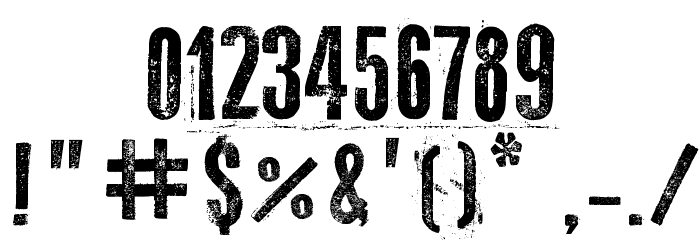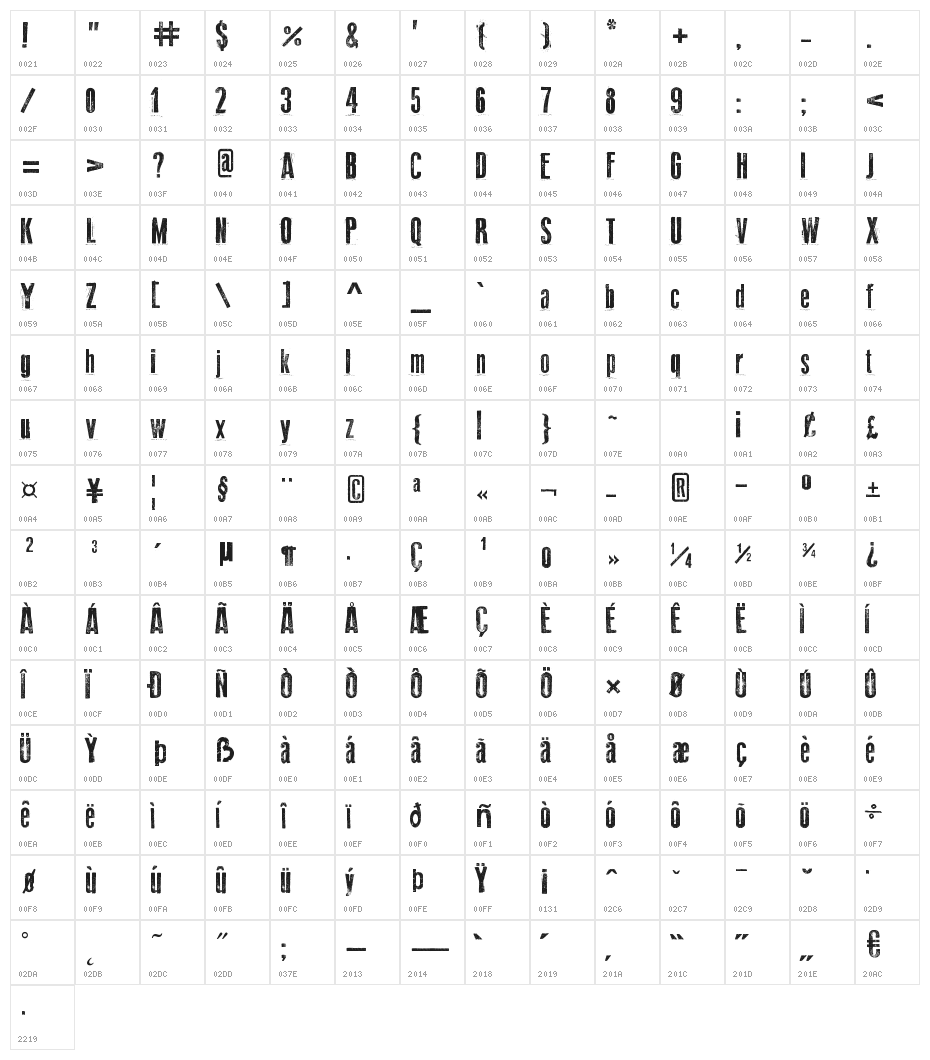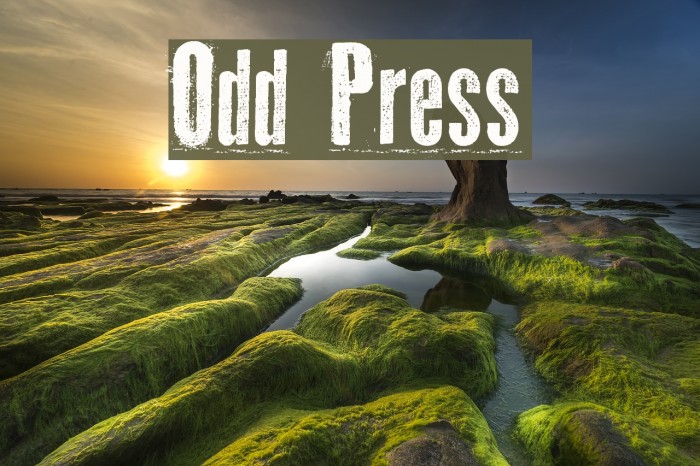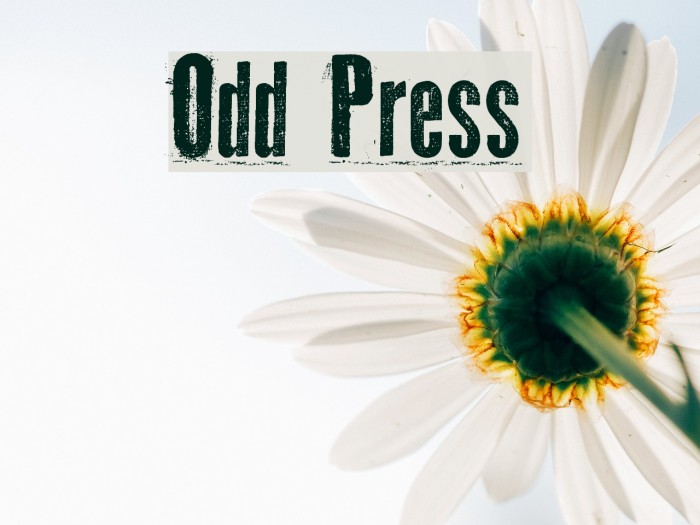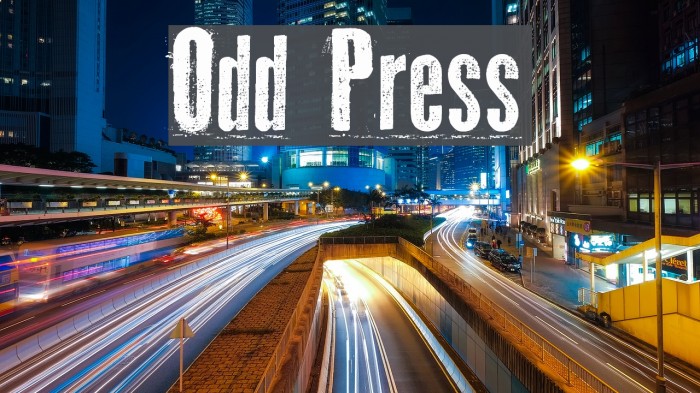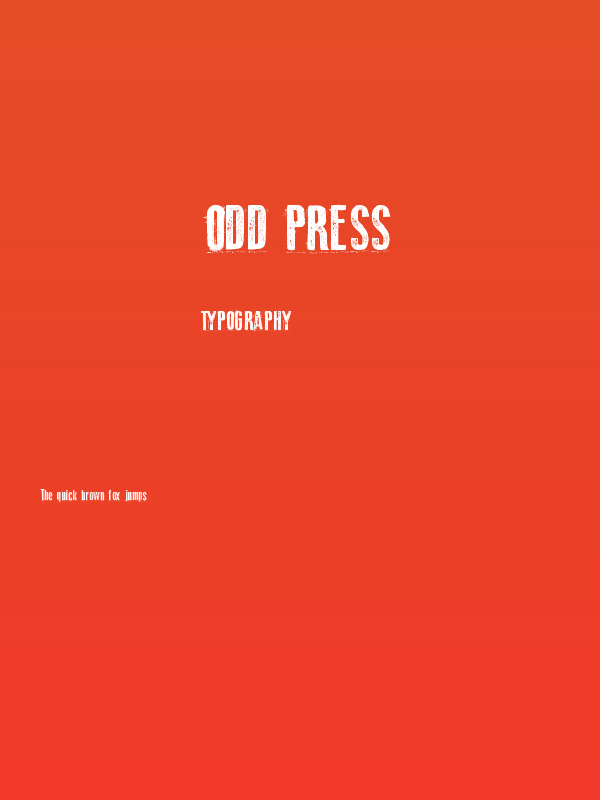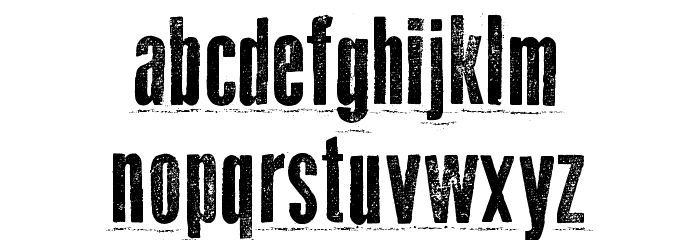
Odd Press Font
Odd Press Description
This font features a distressed, textured appearance that gives it a rugged, vintage feel. The characters are bold and impactful, with a slightly uneven texture that mimics the look of worn, printed type. The uppercase and lowercase letters are consistent in style, maintaining a strong presence across the board. Numbers and special characters follow the same design, ensuring uniformity throughout. This font is ideal for projects that require a bold statement or a retro aesthetic, such as posters, album covers, or branding materials.
| Proposed Projects | Ideal for posters, album covers, branding, and any design needing a vintage, bold statement. |